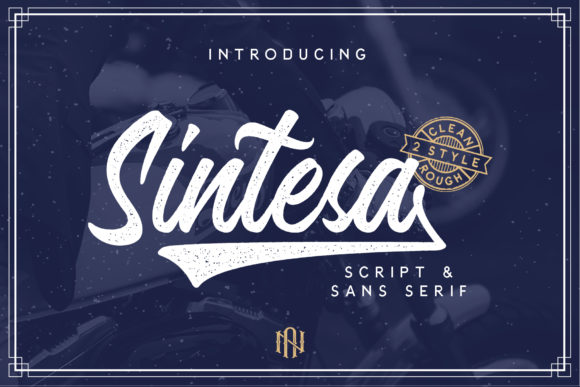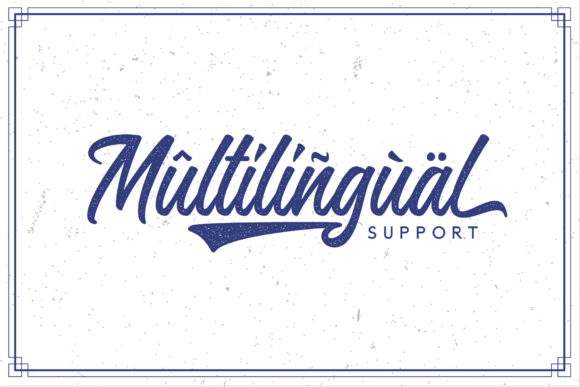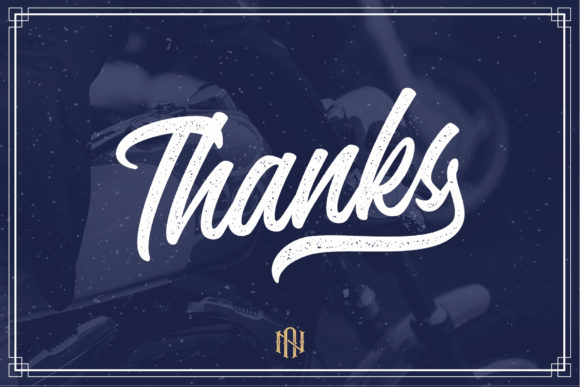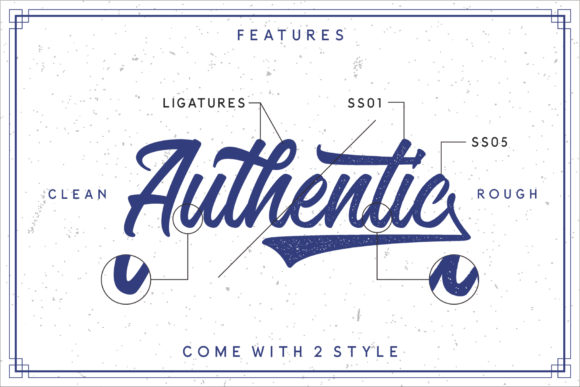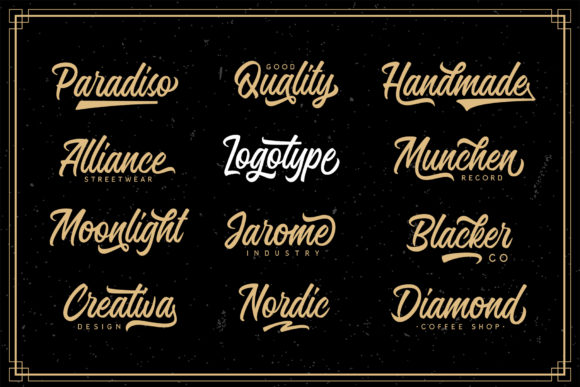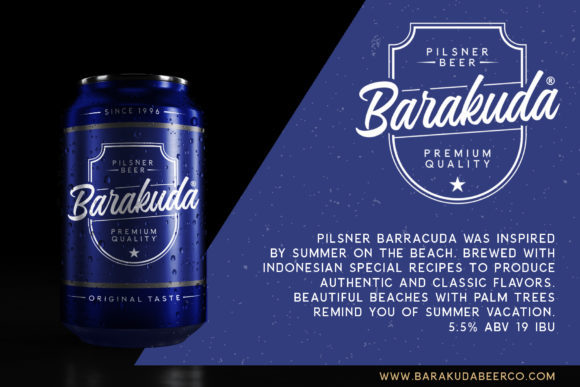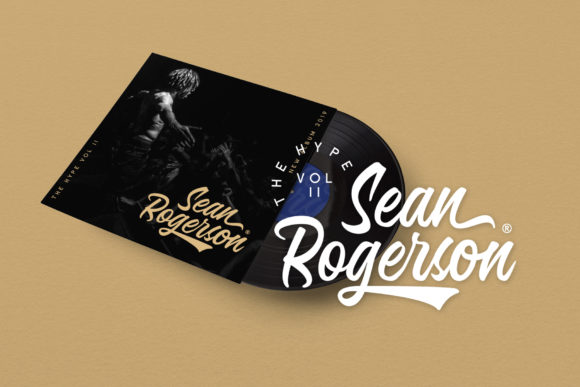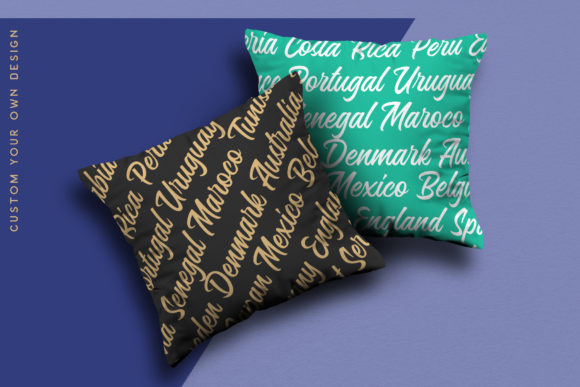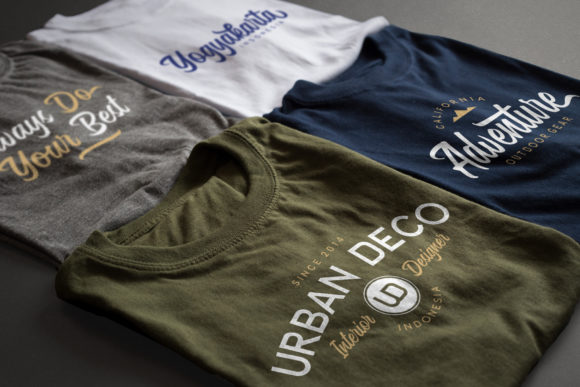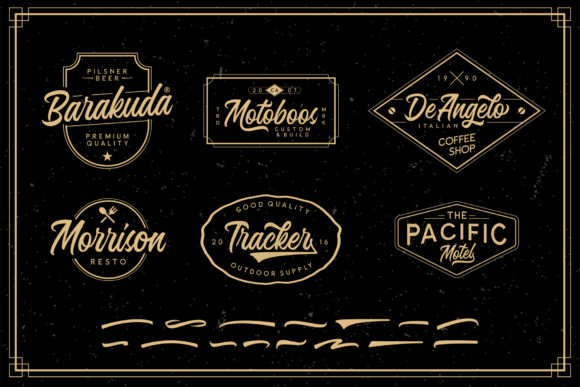
Sintesa Font
About Sintesa Font
Sintesa is a unique and powerful script font with beautiful swashes. Use it to add a retro touch to any design project!